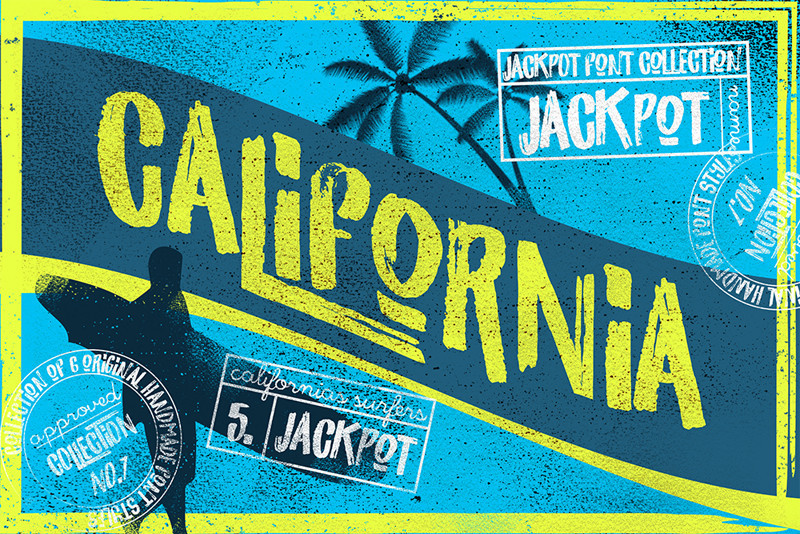
California Brush Font
Font bursting with energy, quick strokes and sharp edges. Ideal for loud messages. Very interesting to use for logos, name tags, handwritten quotes, product packaging, merchandise, social media & greeting cards .Also, ideal to make t-shirts design and other clothing products.